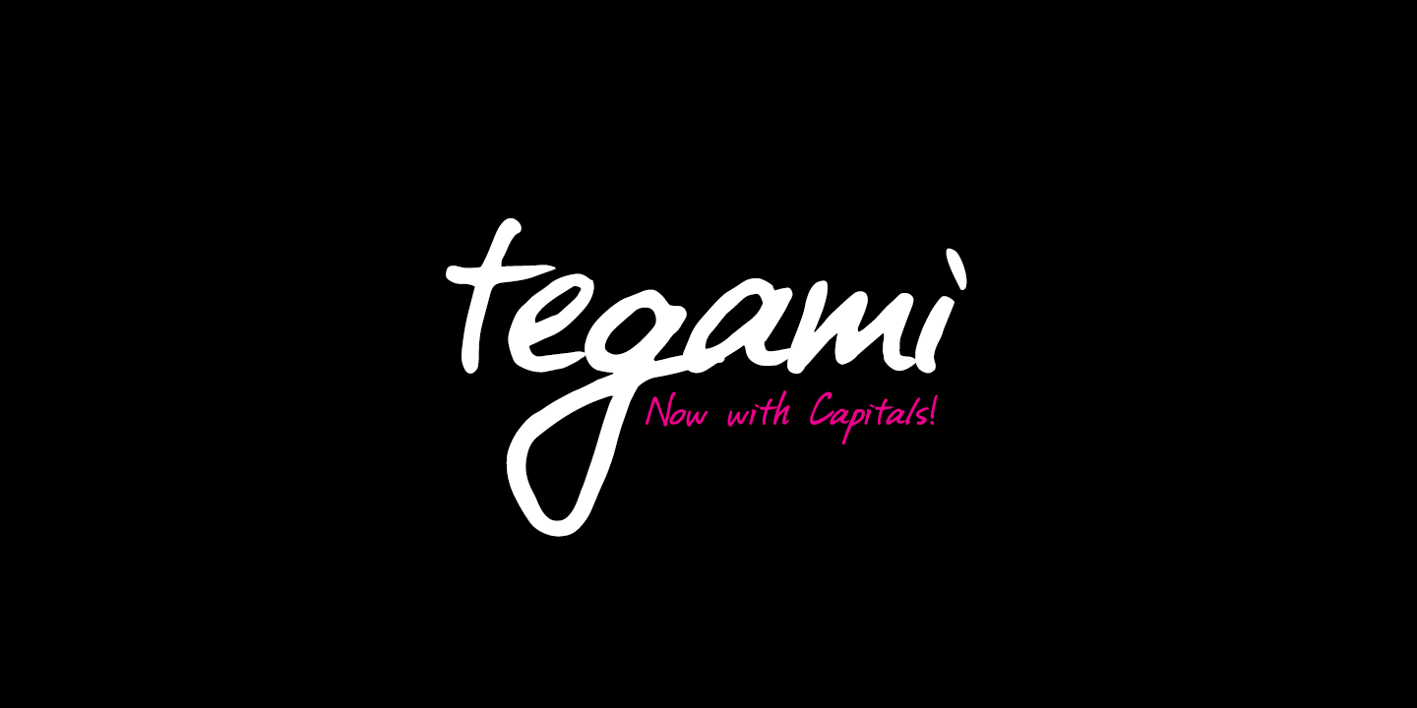
This font is from the handwriting of Kaori Onoda. The font is named after the Japanese word tegami which means letter. This is because the writing was taken from a letter she wrote to me. This includes 3 fonts because it was originally designed to be only lowercase, but by popular demand I included the capital letters. This means there are now 2 of each capital and lowercase letter.